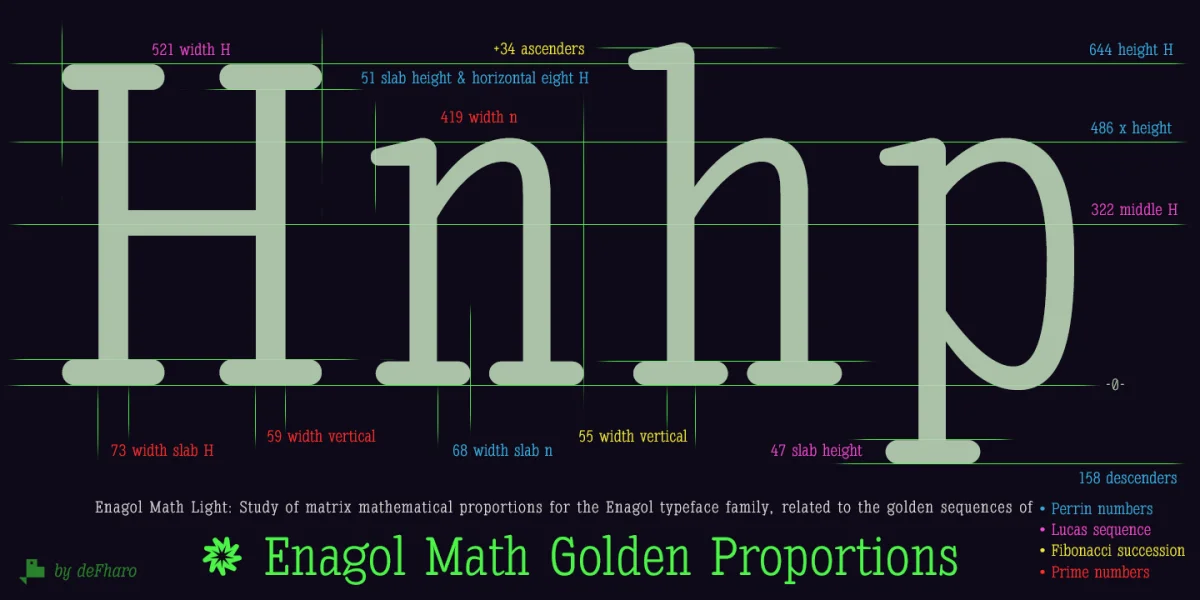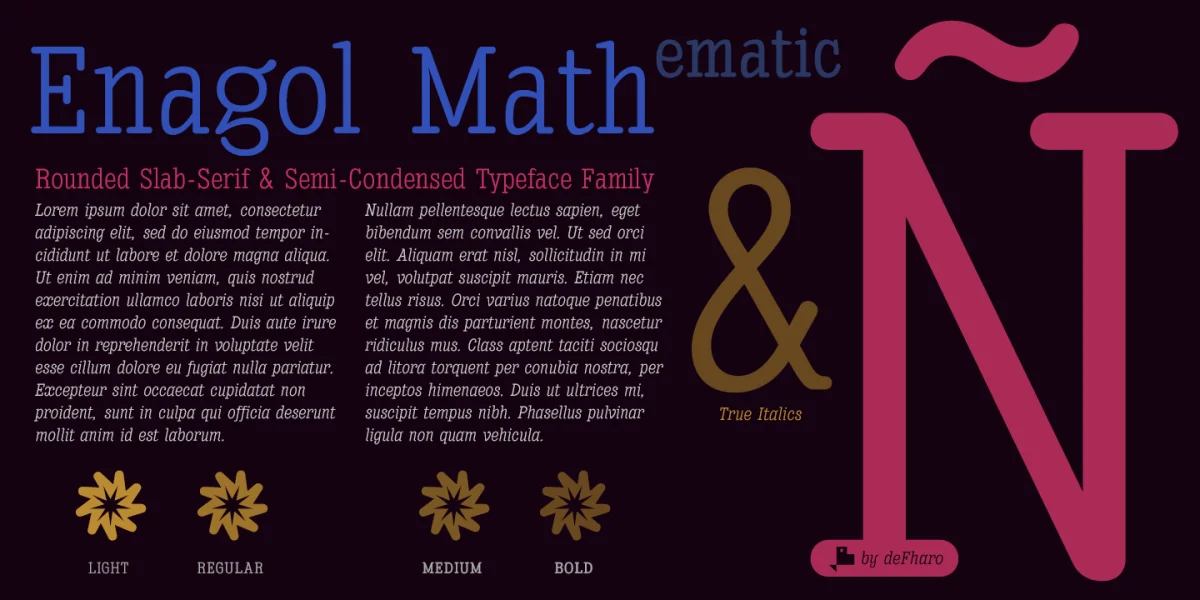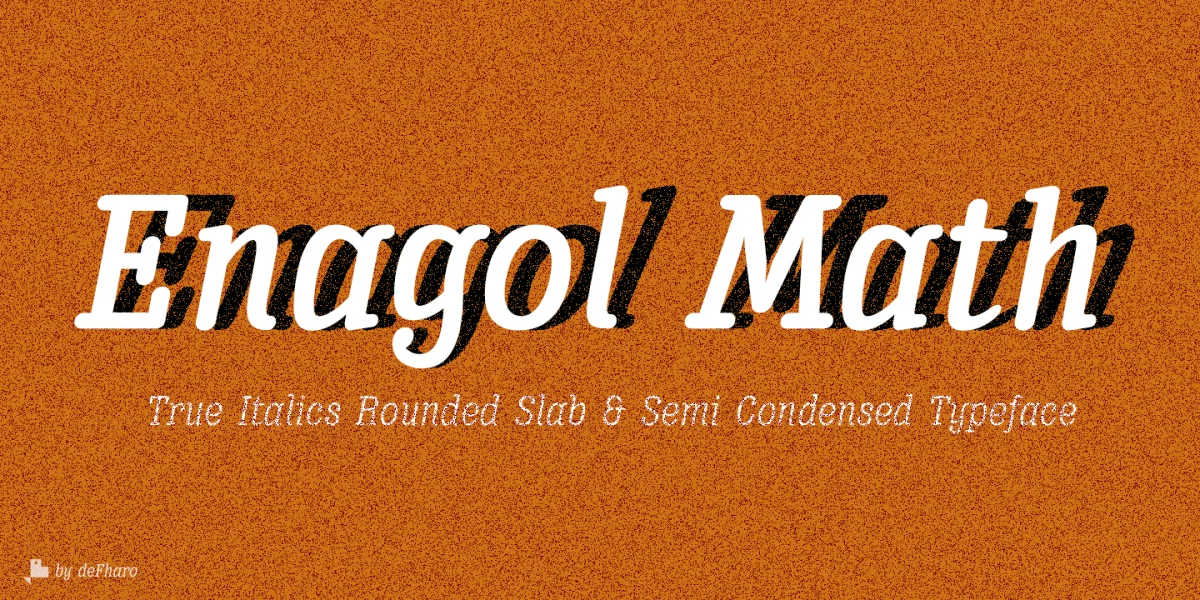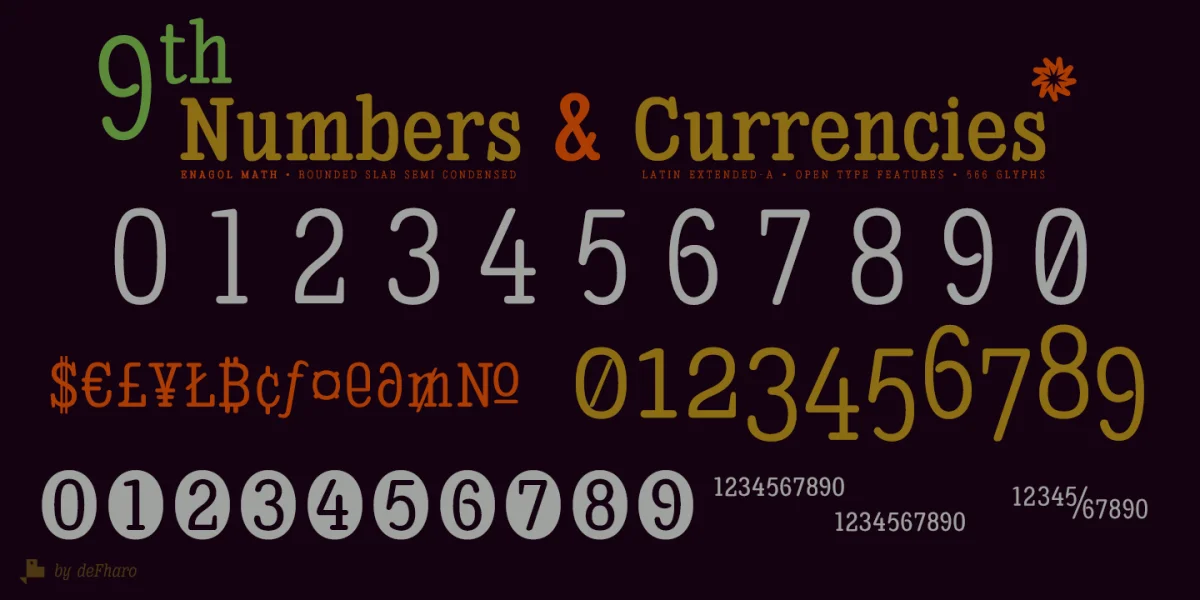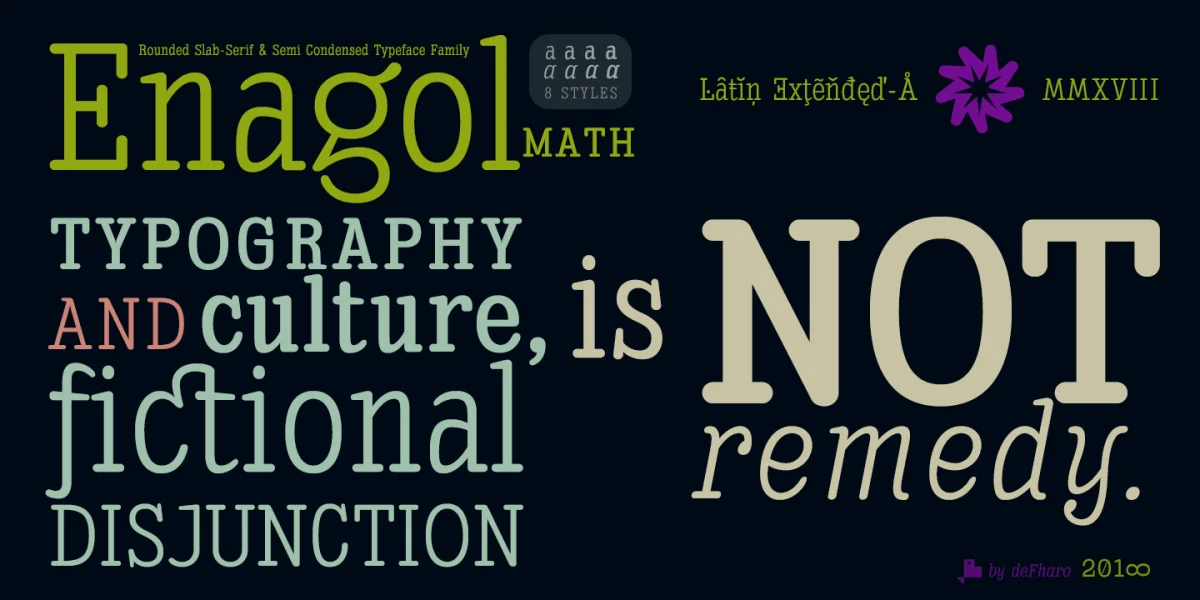
The Enagol Math family consists of 4 weight plus True italics. It is a typeface with rounded Slab-Serif of semi-condensed proportion. I have composed all the proportions of the font based on a study of mathematical proportions related to the golden sequences of Perrin, Lucas and Fibonacci.
From an initial matrix of golden proportions applied in the letters 'H' for capital letters and 'n' for lowercase letters, calculated for the versions of the extremes of the Light and Bold type, below I do the whole calculation of proportions using my formula of three axes and by interpolation I generate the intermediate versions Regular and Medium.
For the Italic versions I have drawn a complete set of lowercase letters that give these fonts an aspect close to the Italic writing. In these versions I have also applied many optical corrections to balance the deformations created in many curves by the mere inclination of the letters, which in the case of this type is 11 °.